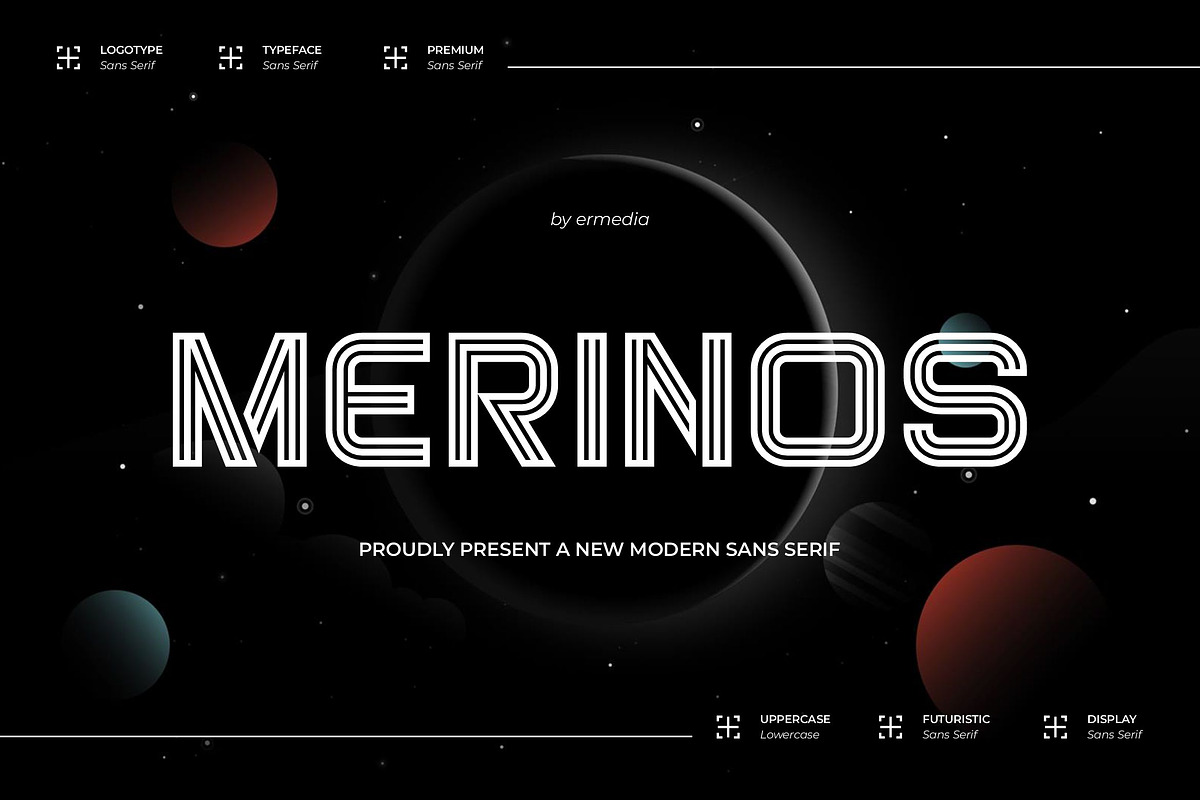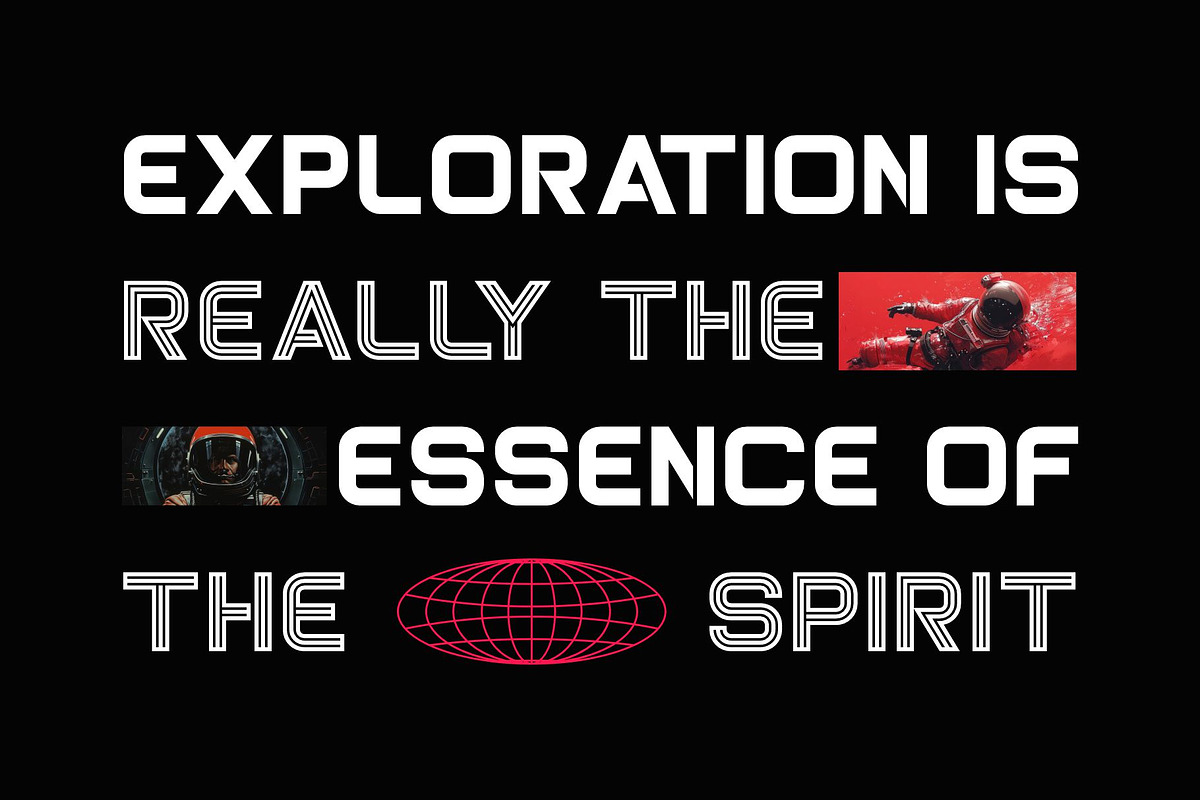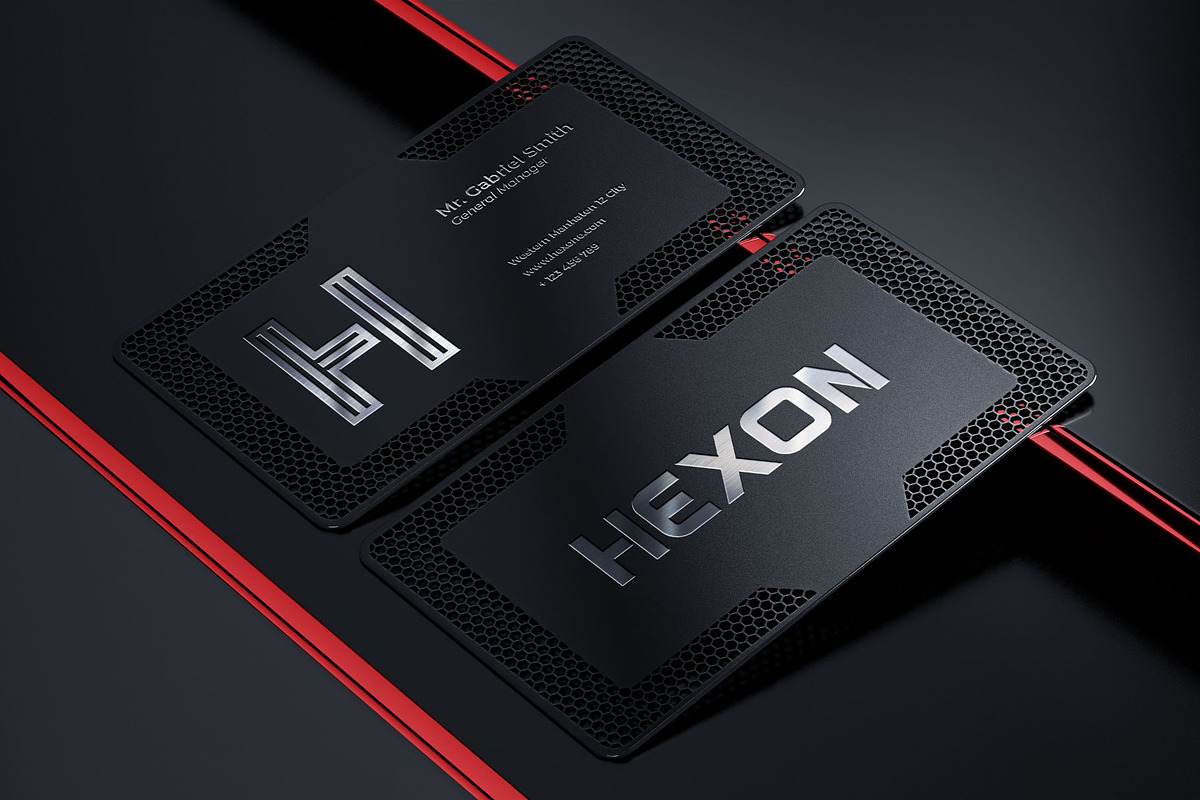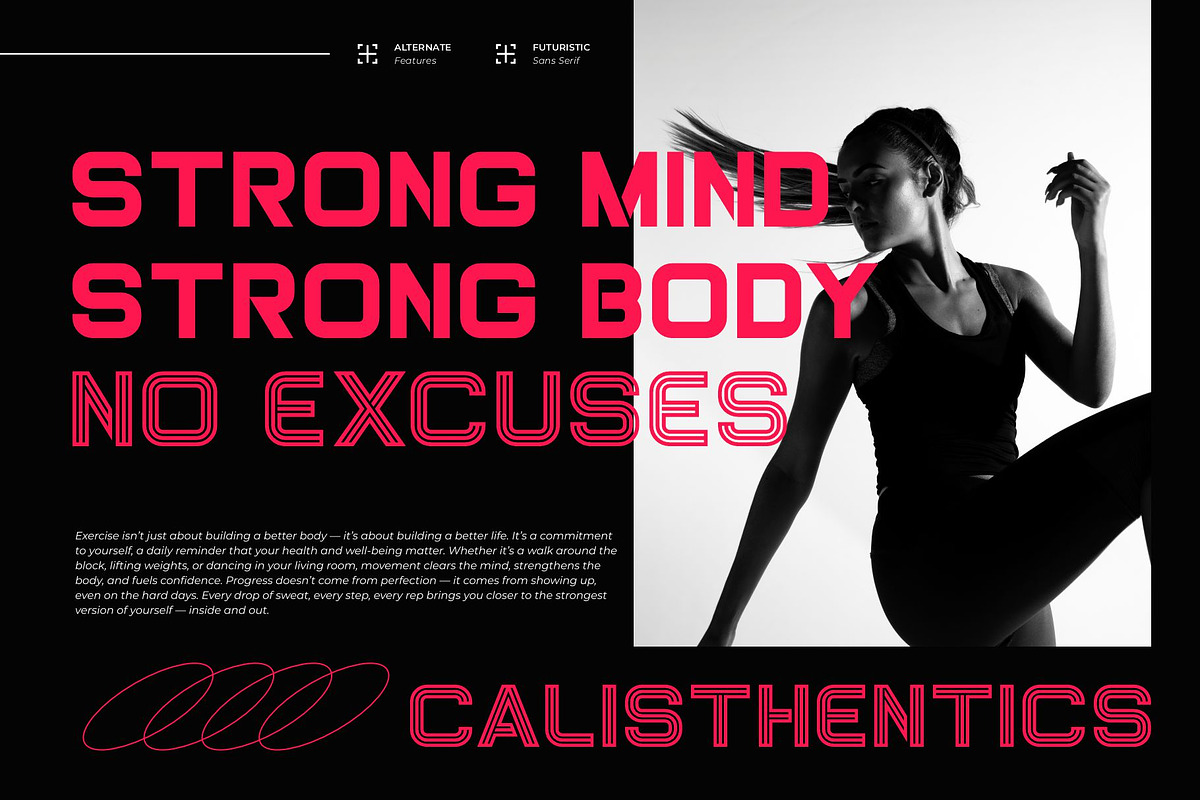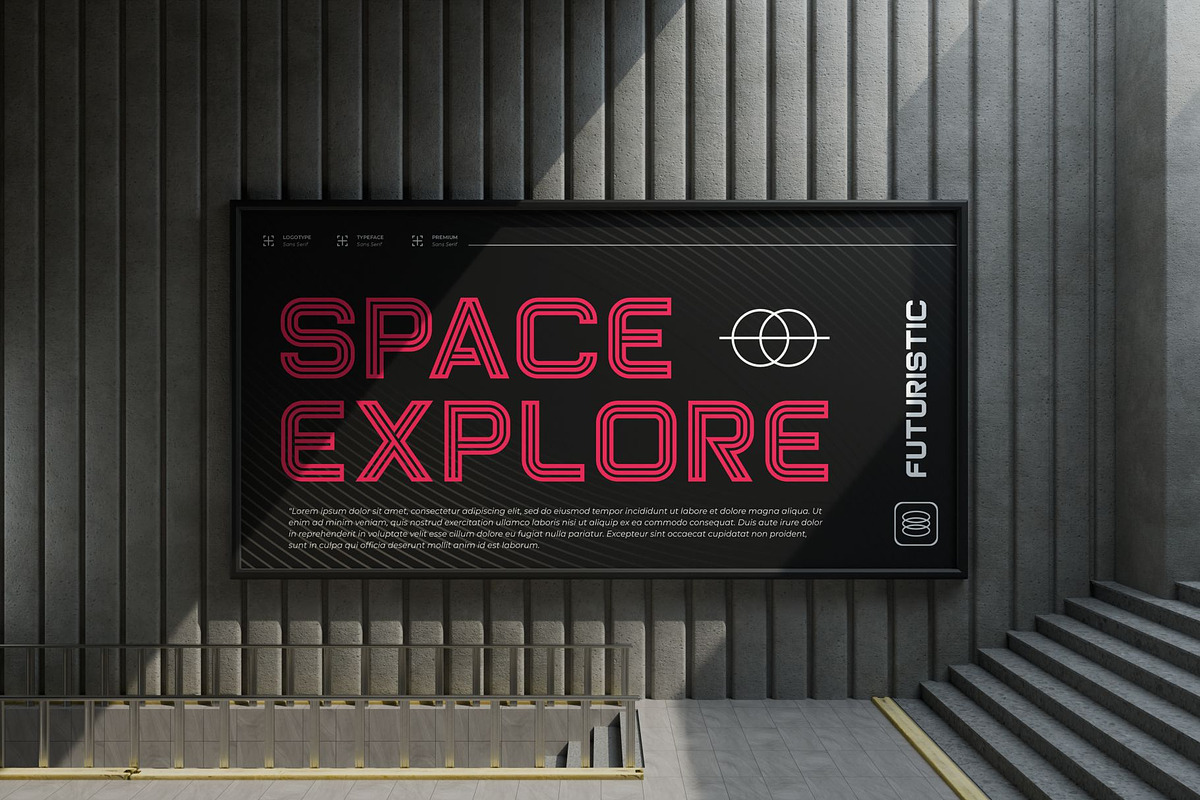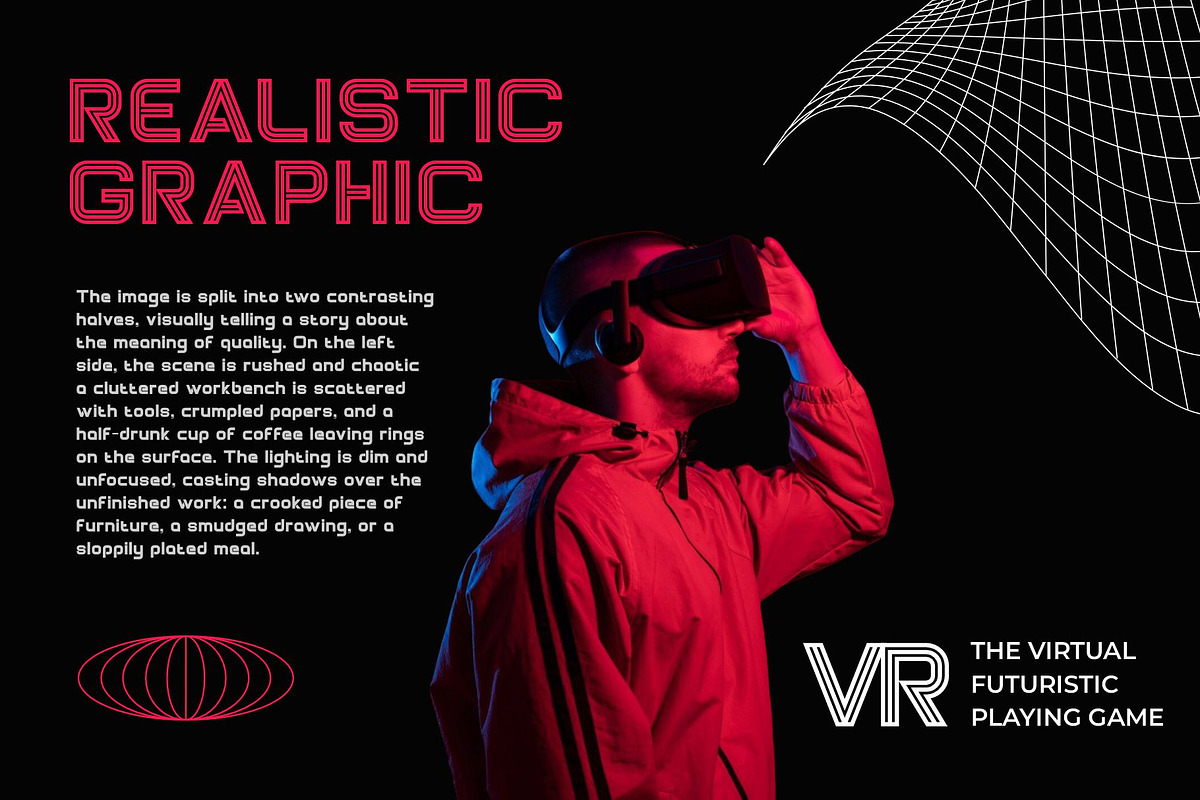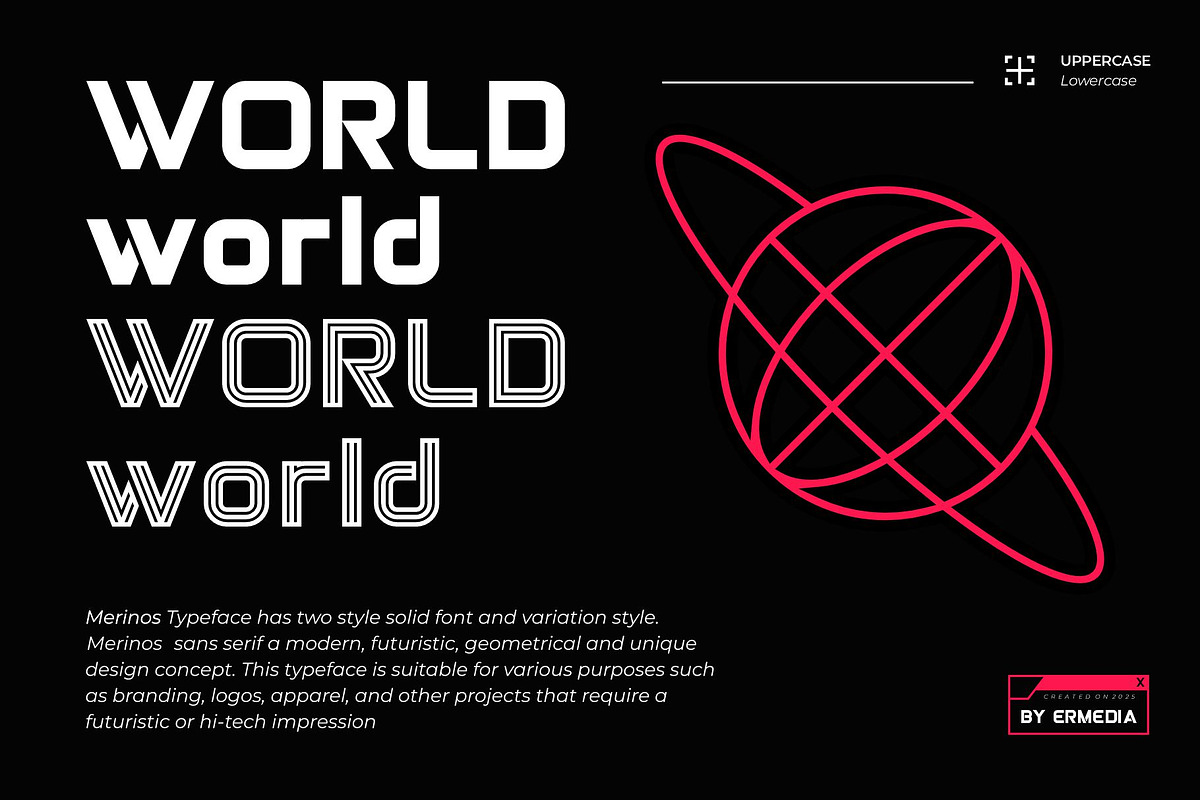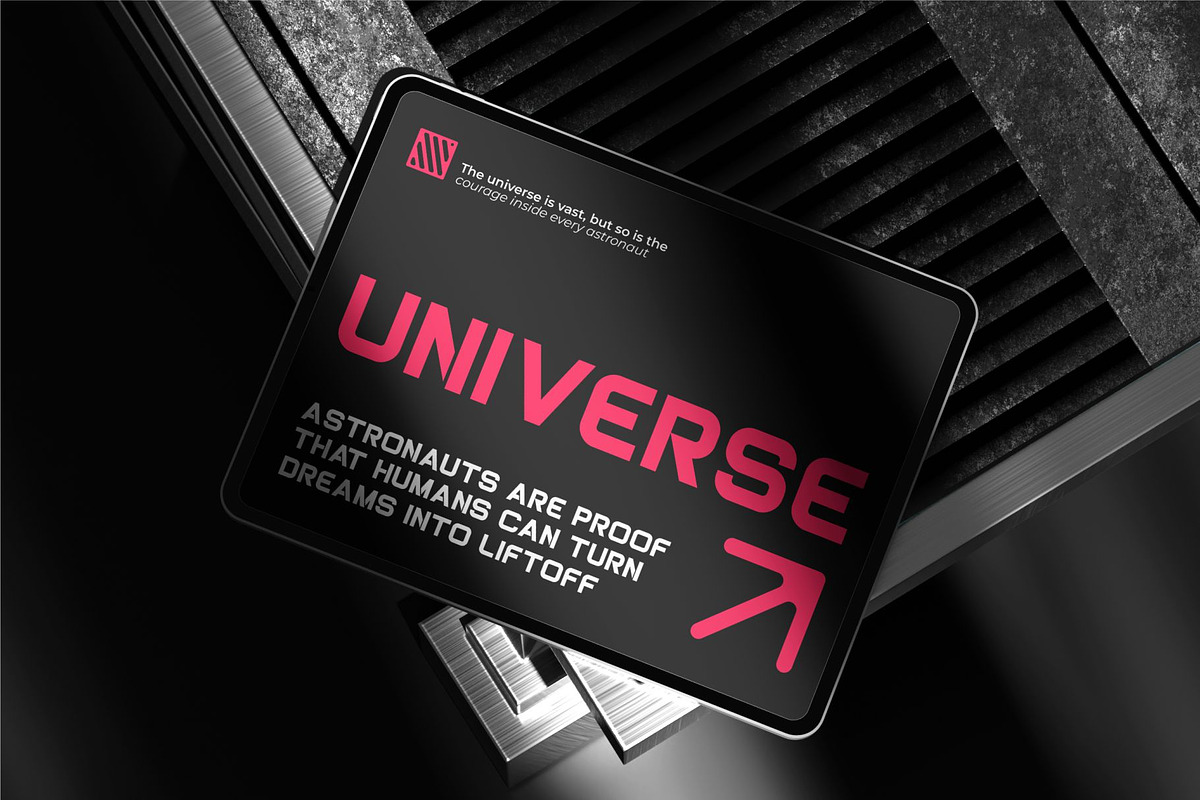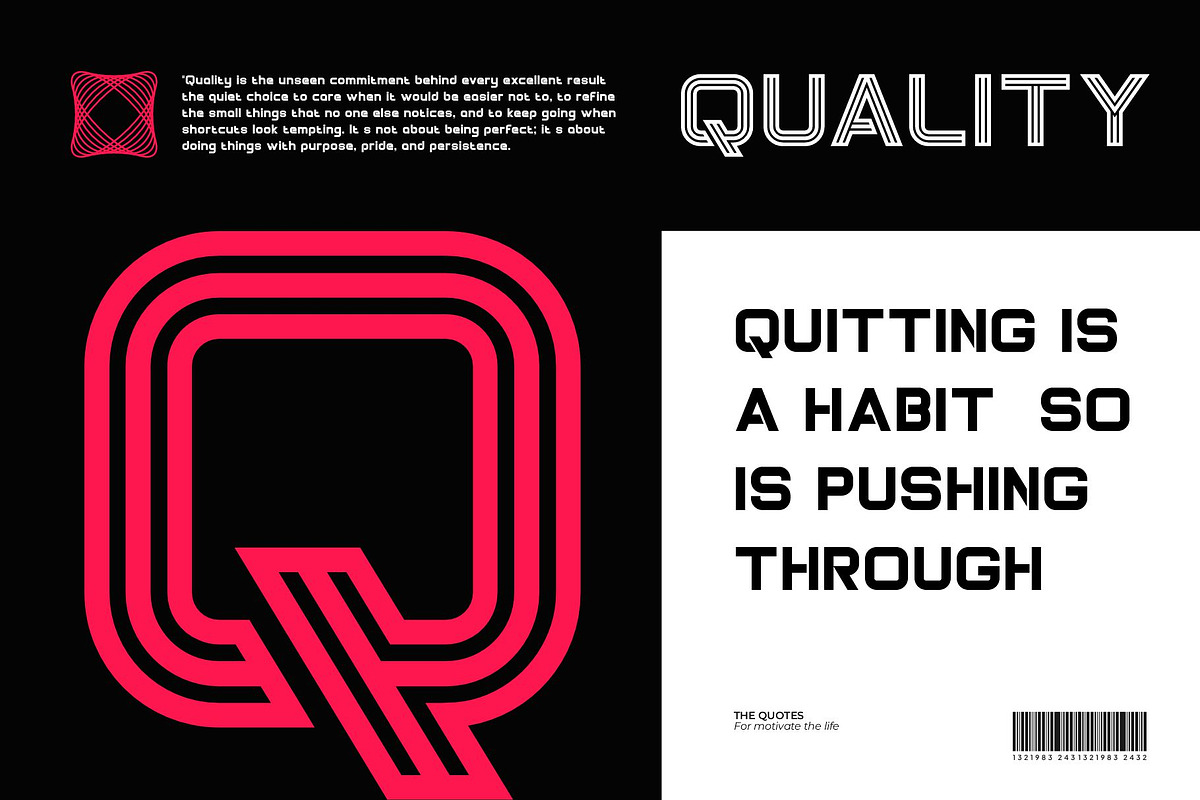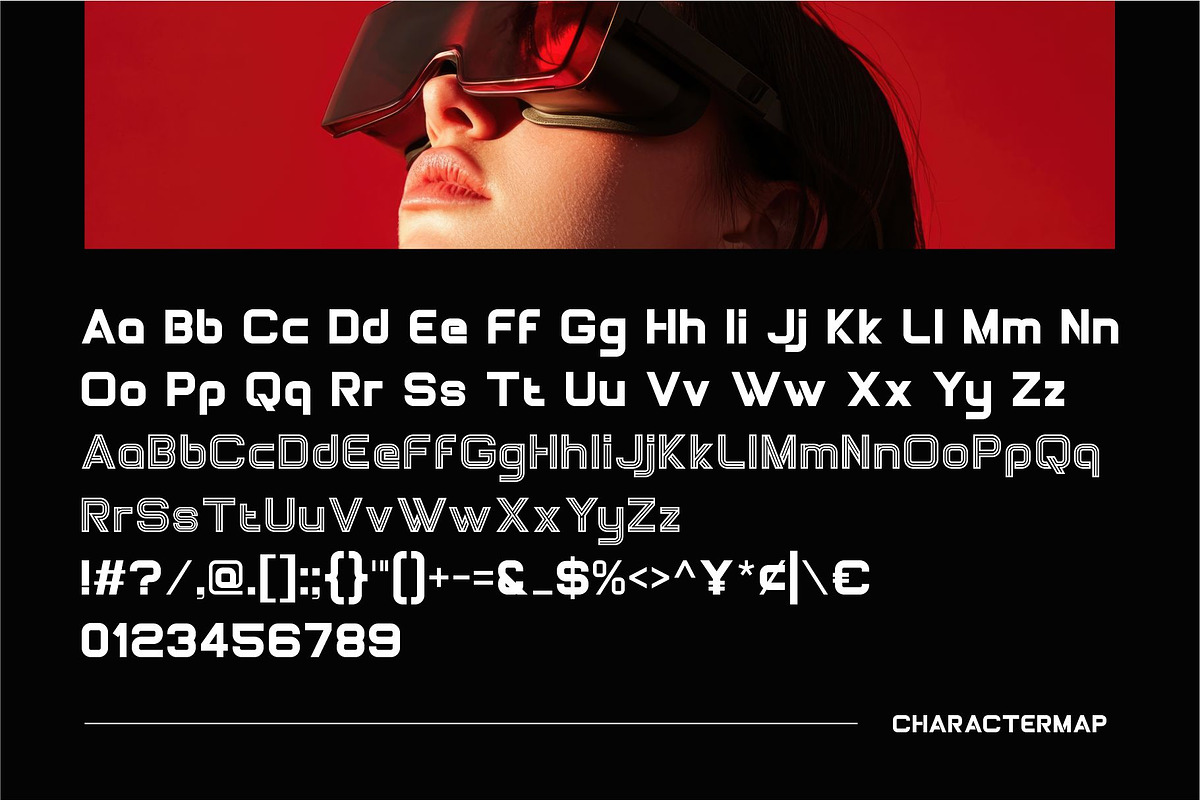
Merinos || Unique Modern Sans Serif
Merinos Sans Serif is a modern and Futuristic font type for all branding and logo designs. This modern and Futuristic Sans Serif font has a beautiful character. This font is suitable for invitation card designs, cool logos, movie titles, movie names, business cards, book titles, brand names, and various other designs. Merinos Sans Serif is a smooth serif font that exudes sophistication and the moment. Its unique alternates make this font a perfect partner for any project.